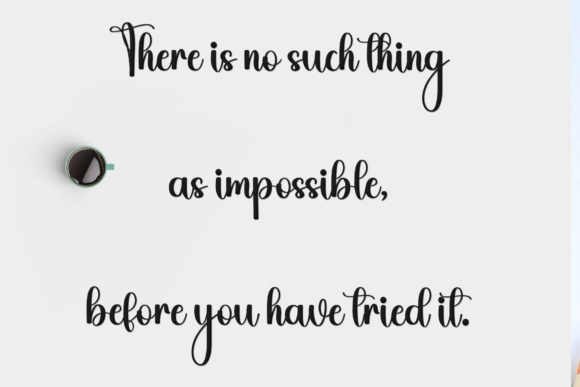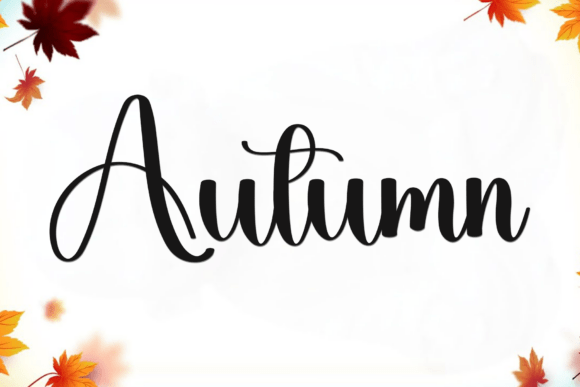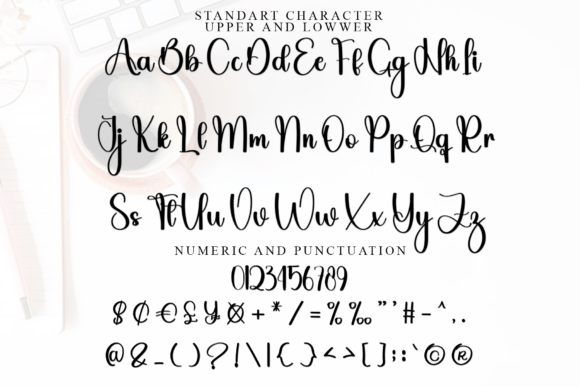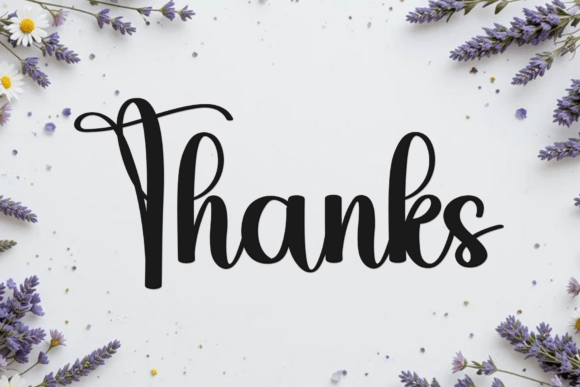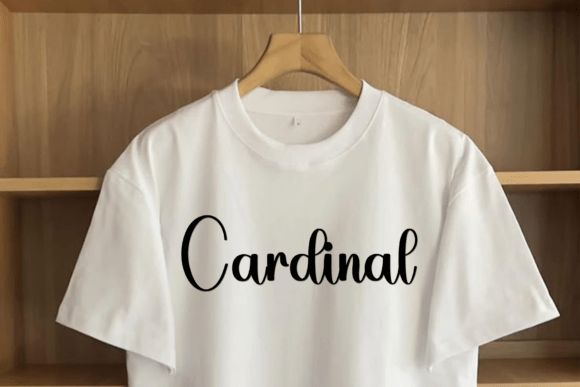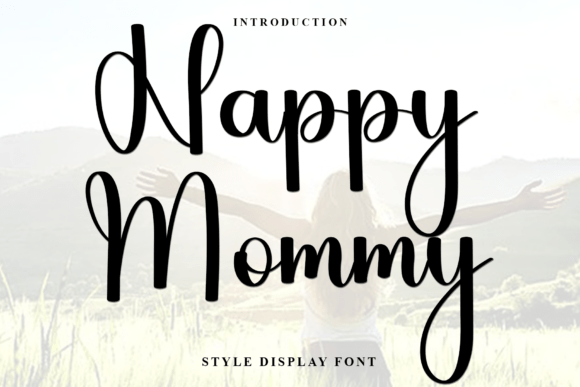
Introducing Happy Mommy Font: Elevate Your Designs with a Touch of Elegance
In the world of design, typography plays a crucial role in conveying messages, evoking emotions, and creating a lasting impression. For designers, crafters, and creative enthusiasts, finding the perfect font can be a daunting task. However, if you’re looking for a font that embodies elegance, uniqueness, and versatility, look no further than the Happy Mommy Font. This beautiful and eye-catching font is designed to add a soft, unique touch to your projects, making it an ideal choice for a wide range of applications.
The Distinctive Characteristics of Happy Mommy Font
What sets Happy Mommy Font apart from other fonts is its distinctive strokes, which give it a special character. The font’s unique design makes it meaningful and versatile, perfect for future use in various design projects. Whether you’re working on a logo, branding materials, crafts, or other creative works, Happy Mommy Font is sure to make a statement. Its natural font style is designed to enhance your designs, making them appealing to a wide range of audiences across different artistic and creative fields.
Key Features of Happy Mommy Font
- Unique and Eye-Catching Design: Happy Mommy Font boasts a soft, unique touch that sets it apart from other fonts.
- Distinctive Strokes: The font’s distinctive strokes give it a special character, making it meaningful and versatile.
- Variety of Characters: Happy Mommy Font comes with a range of characters, making it perfect for design projects, crafts, and other creative works.
Happy Mommy Font is an ideal choice for designers and crafters looking to add a touch of elegance to their projects. Whether you’re working on a:
- Logo or Branding Materials: Use Happy Mommy Font to create a unique and memorable brand identity.
- Craft Project: Add a personal touch to your crafts, such as handmade cards, invitations, or DIY decorations.
- Digital Design: Use Happy Mommy Font in your digital designs, such as social media graphics, blog posts, or website headers.
Benefits of Using Happy Mommy Font
By incorporating Happy Mommy Font into your designs, you can:
- Enhance Your Designs: Add a touch of elegance and sophistication to your projects.
- Stand Out from the Crowd: Use a unique font that sets your designs apart from others.
- Increase Engagement: Create designs that appeal to a wide range of audiences, increasing engagement and interaction.
In conclusion, Happy Mommy Font is a beautiful and versatile font that can elevate your designs to the next level. Its unique and eye-catching design, distinctive strokes, and variety of characters make it perfect for designers, crafters, and creative enthusiasts. With its compatibility with various applications and ease of use, Happy Mommy Font is an ideal choice for anyone looking to add a touch of elegance to their projects.